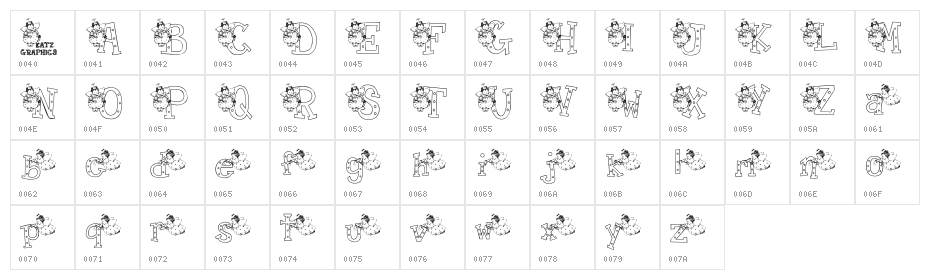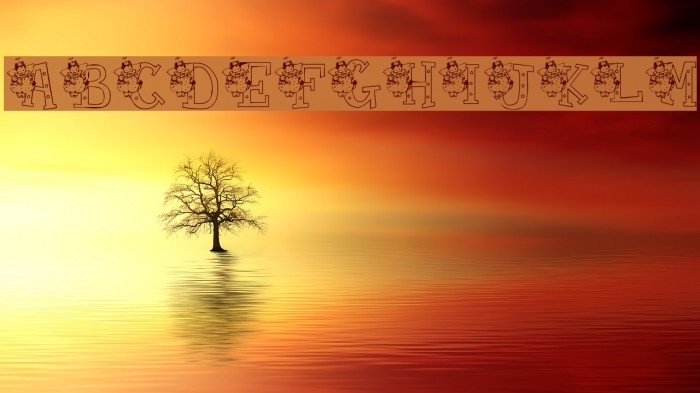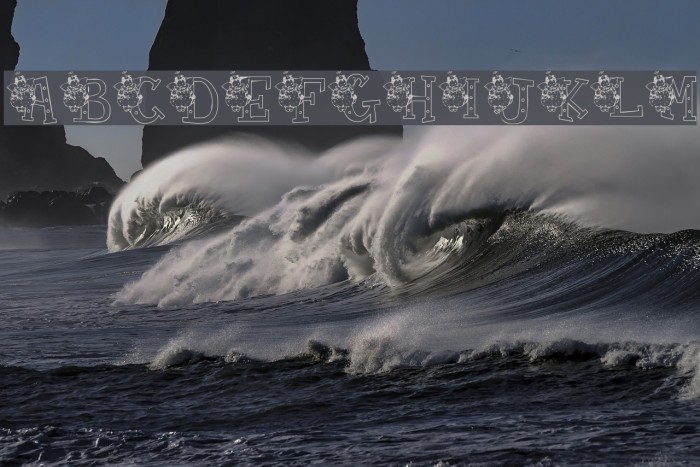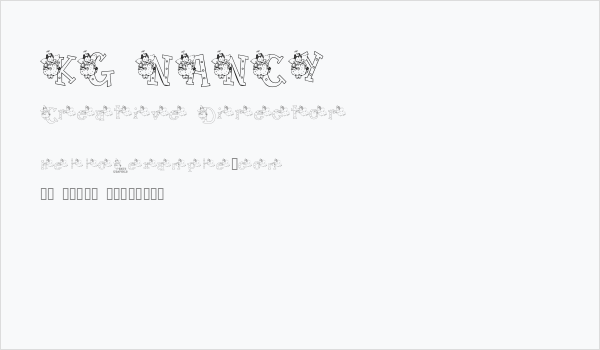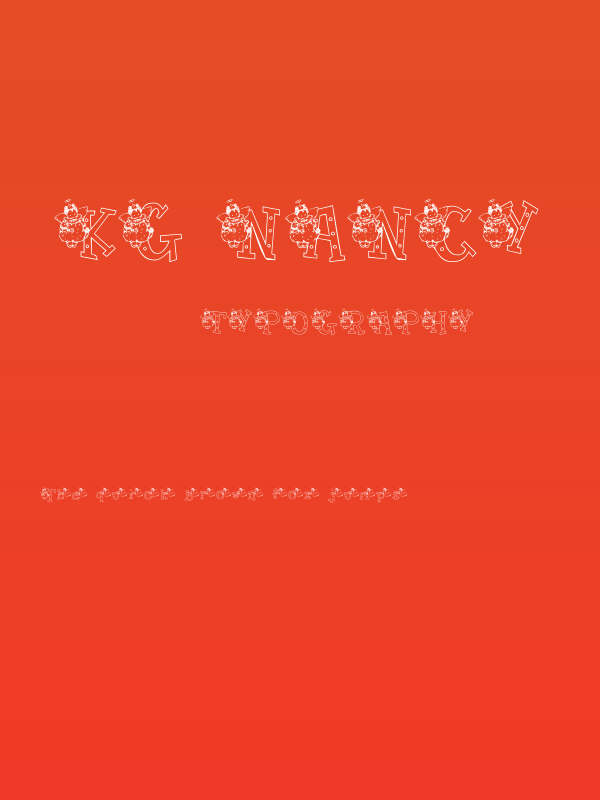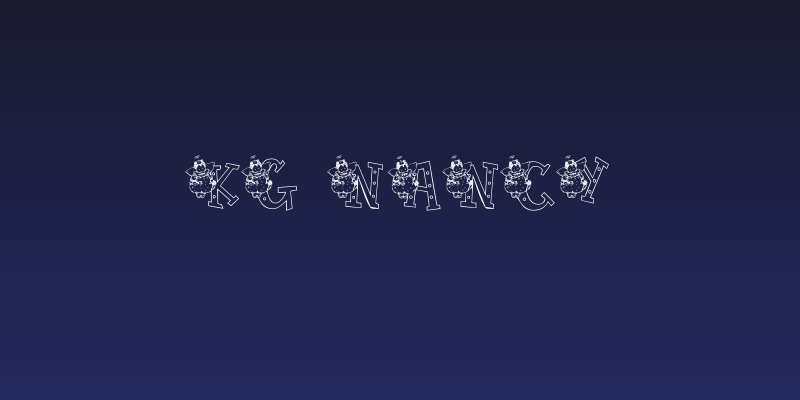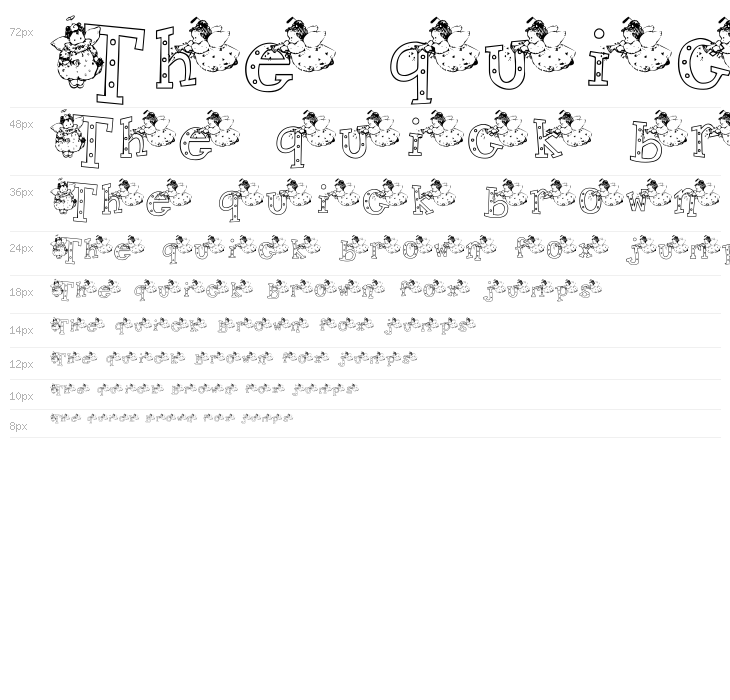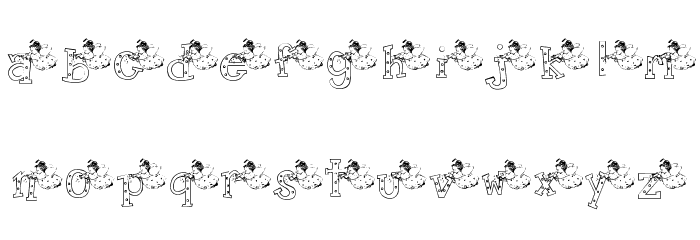
KG NANCY Font
KG NANCY Description
This playful and decorative font features whimsical characters integrated into each letter, creating a unique and engaging visual style. The letters are adorned with cartoon-like figures, adding a sense of fun and creativity. The uppercase and lowercase letters maintain a consistent design theme, with each character showcasing a distinct personality. The font lacks numerical characters and special symbols, focusing solely on alphabetic representation. Its intricate design makes it suitable for projects that require a touch of humor and artistic flair.
| Overall Style | Playful, Artistic |
| Proposed Projects | Ideal for children's book covers, playful invitations, greeting cards, and creative branding projects. |